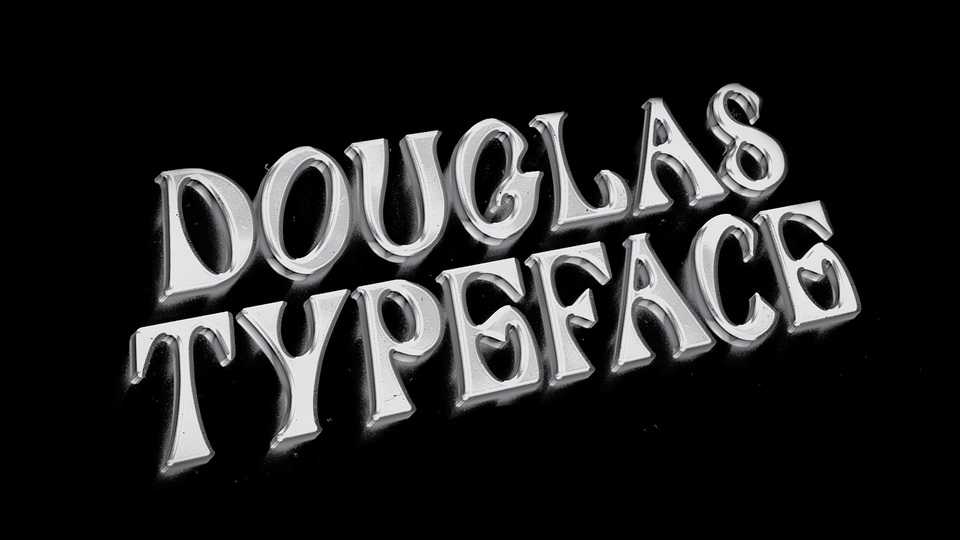
Download Douglas font, a creative display typeface with a retro mood inspired by the plates present everywhere in the city of Paris (gas, electricity, etc.).
Designer: Cyril Kimmerlin